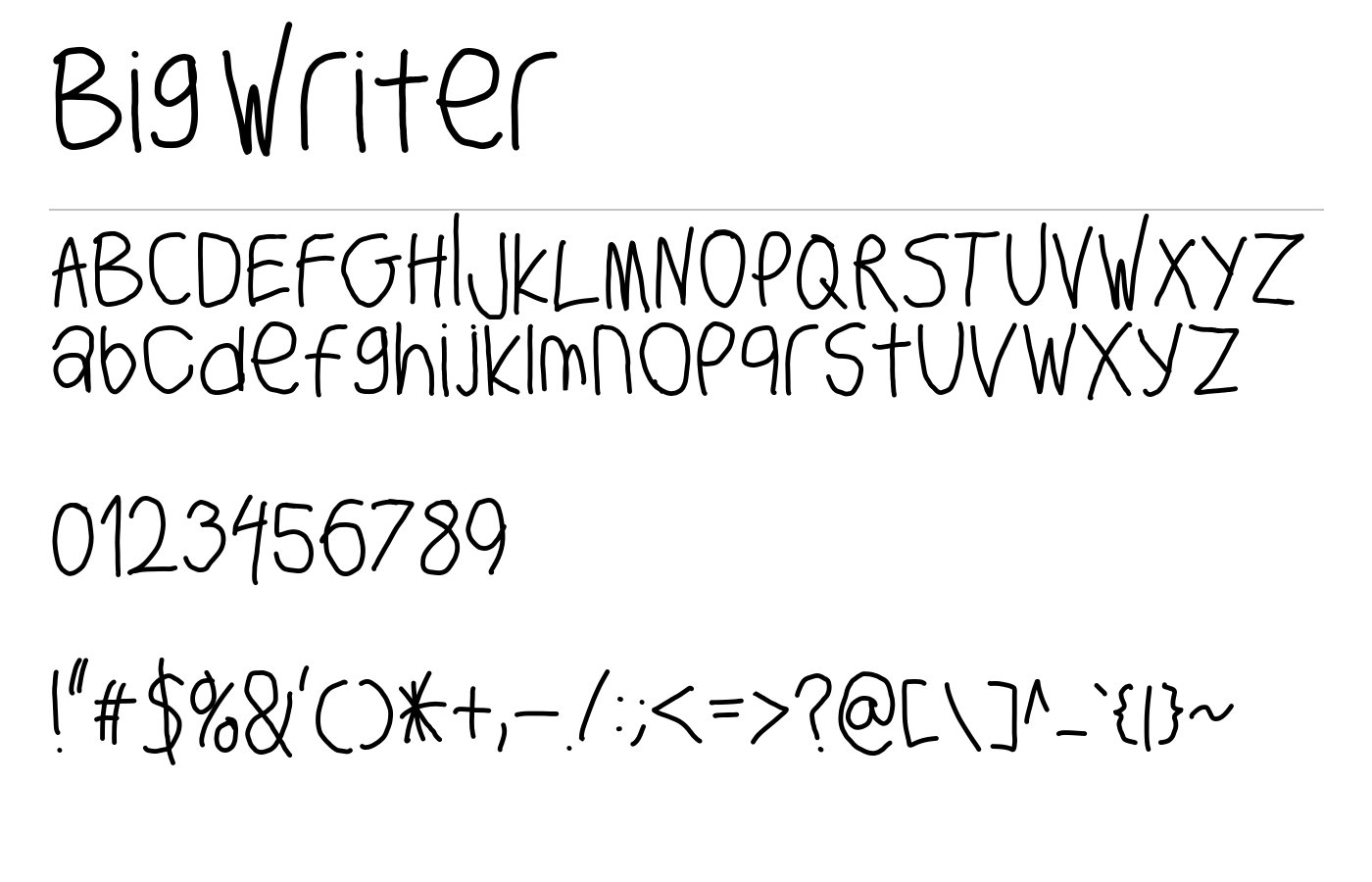
Big Writer is a playful, hand-drawn sans serif font that mimics casual handwriting with its tall, narrow letterforms and uneven strokes. Its informal and friendly style makes it perfect for creative projects, children’s materials, or any design seeking a personal and approachable feel. This font works best for headlines, invitations, or branding that wants to convey warmth and authenticity.
Big Writer Font
About Big Writer Font